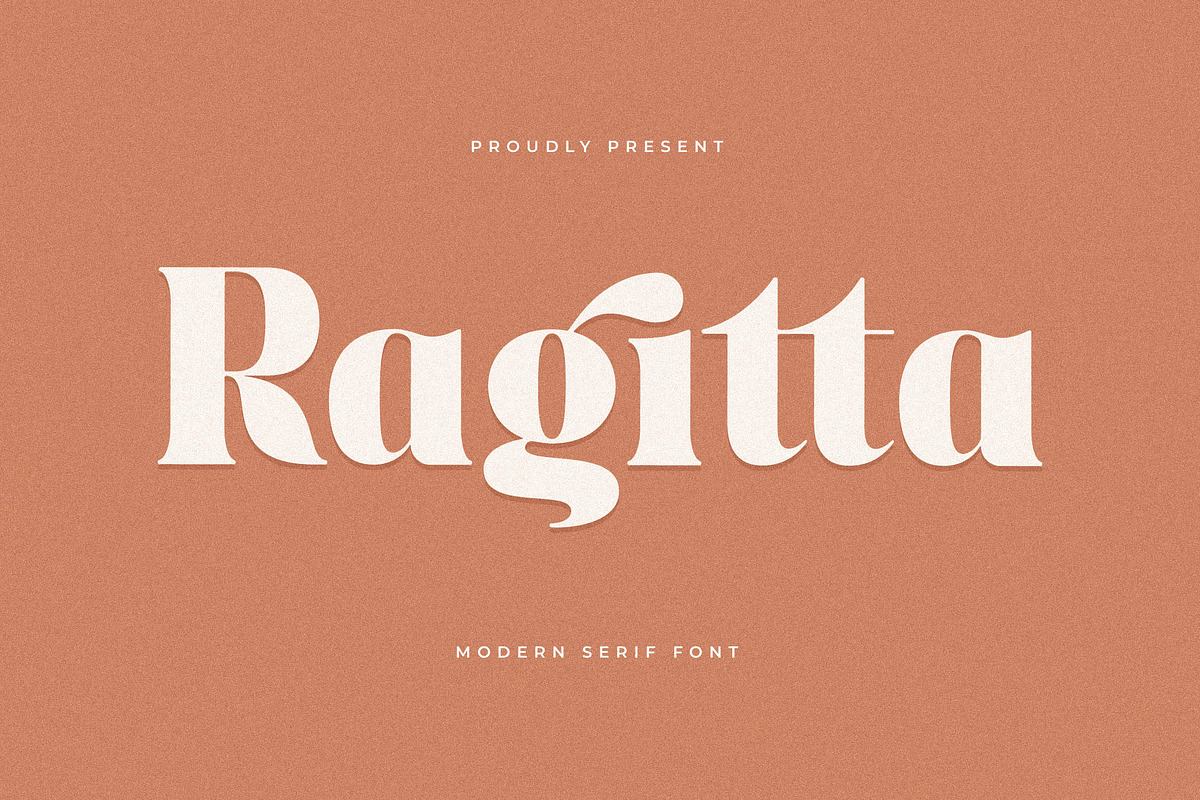
Ragitta Modern Serif Font Free Download
Ragitta Modern Serif Font Free Download is an elegant and stylish typeface that blends timeless serif structure with contemporary finesse. Please note: you must purchase this font for commercial use, but you can test it through a free download. With its high-contrast strokes, soft curves, and fashionable letterforms, Ragitta is perfect for luxury branding, editorial design, packaging, wedding stationery, and social media graphics.
Designed for creatives who value sophistication and readability, this font brings class and confidence to every design. Whether you're building a premium logo or crafting a clean, high-end layout, Ragitta Modern Serif Font Free Download offers the perfect balance of tradition and trend. Fully compatible with Adobe Illustrator, Photoshop, Canva, and more. Download it today for personal use and elevate your projects with the refined elegance of Ragitta.